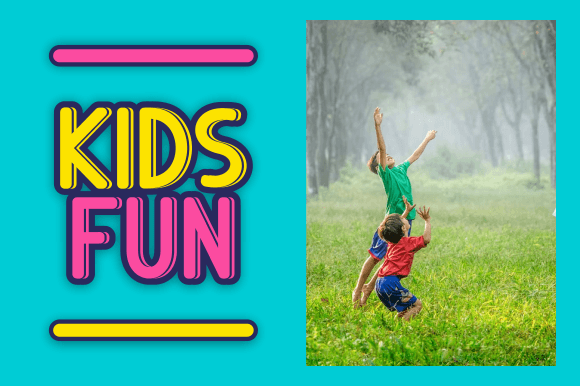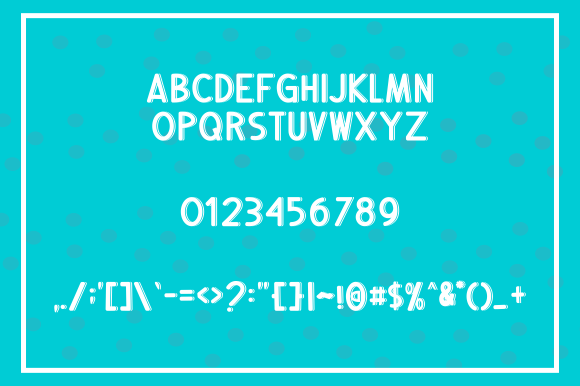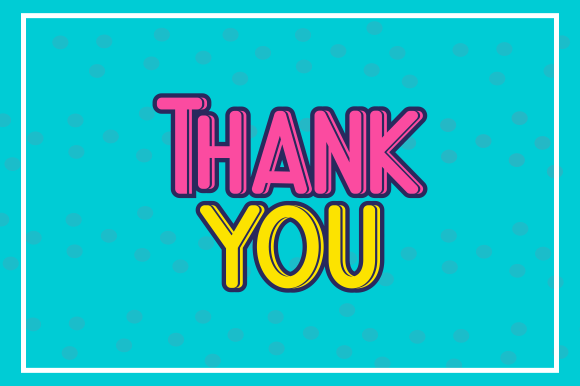
Introduction to Omedio Font Font
Fonts play a crucial role in design, and the Omedio Font font is a typeface that brings both character and versatility to any project. Whether you’re working on a branding project, a website, or a print design, the Omedio Font font offers a unique style that can elevate your work.
Omedio is a sans serif font ready to have fun.
A font with lots of combination possibilities, a fun display font, good to make logotypes, stickers, fun kids’ signs, and other lettering projects .
Key Features of Omedio Font Font
Why Choose Omedio Font Font?
The Omedio Font font is more than just a typeface – it’s a design tool that helps you communicate your message with style and clarity. Its unique character set and versatile design make it suitable for a wide range of applications, from elegant invitations to bold headlines.
With its carefully crafted letterforms and balanced proportions, the Omedio Font font ensures readability and visual appeal across all mediums.
What makes Omedio Font font special?
The Omedio Font font stands out with its unique design, exceptional readability, and versatility across various design applications.